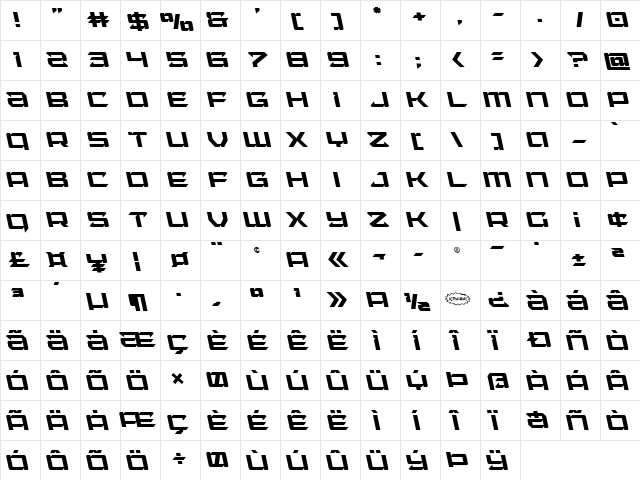
Laser Wolf Leftalic Italic
Design Context for Laser Wolf Leftalic Typeface
Laser Wolf Leftalic is a composed and adaptable typeface that performs quietly and consistently across a wide range of design contexts. The slanted form adds forward momentum and visual energy.